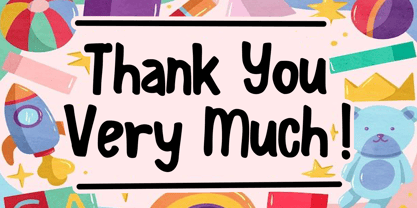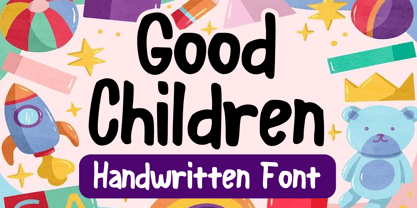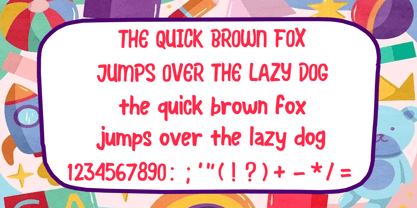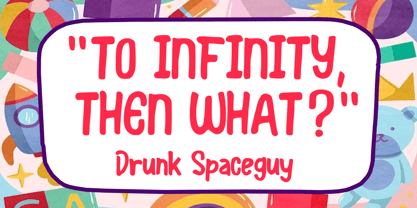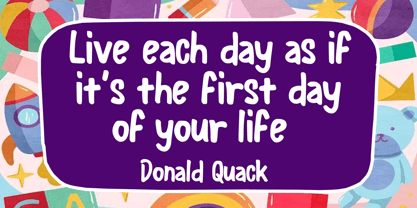
Good Children
by Mvmet
The Good Children Font Family was designed by Gabriel Valentinus and published by Mvmet. Good Children contains 1 styles. More about this family
Good Children is a playful and engaging display font that enhances a variety of design projects, taking them to new heights. Ideal for creative applications, this font is perfect for stickers, t-shirt designs, eye-catching logos, magazine and book covers, comics, cartoon illustrations, everyday typing, and much more. With its unique character, Good Children adds a fun and stylish flair to your designs, making them stand out in any context.
Designers: Gabriel Valentinus
Foundry: Mvmet